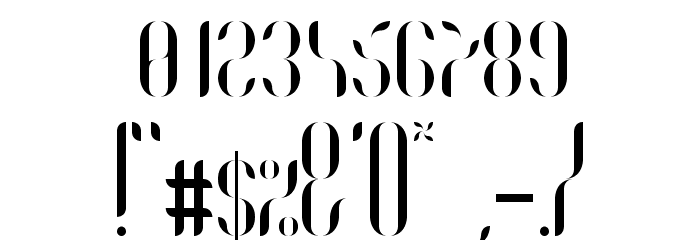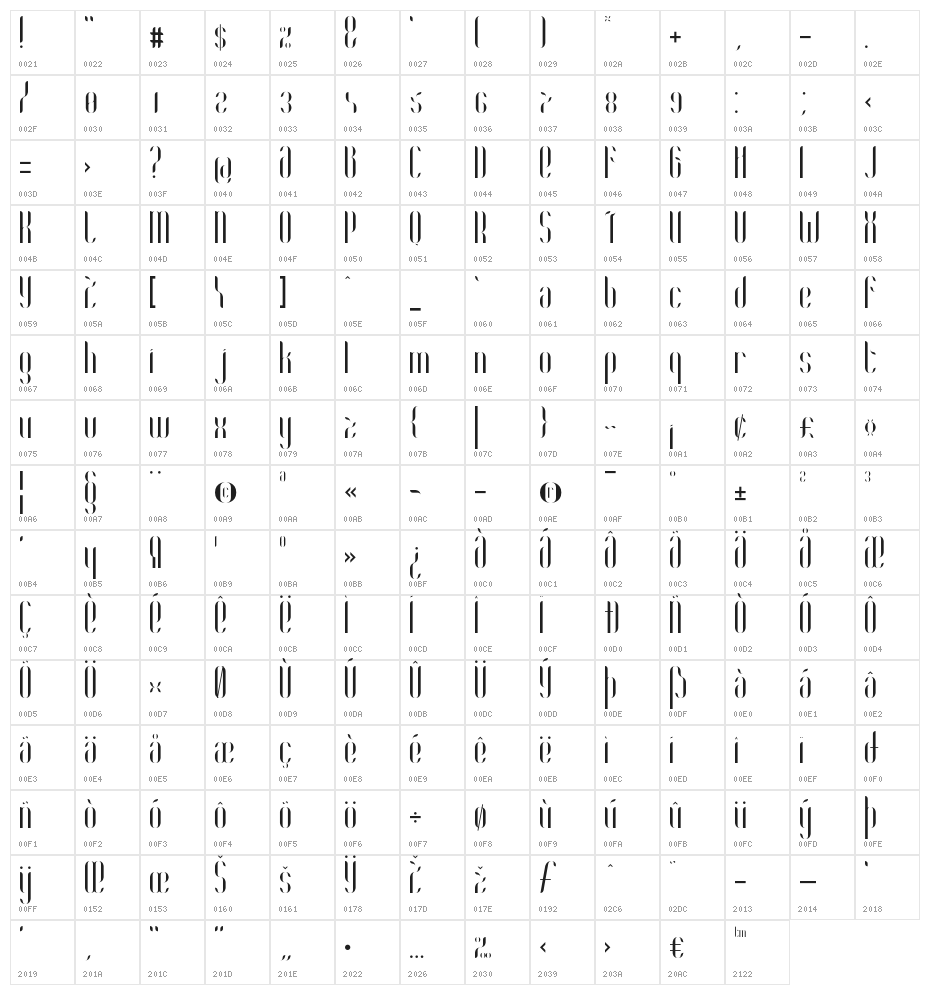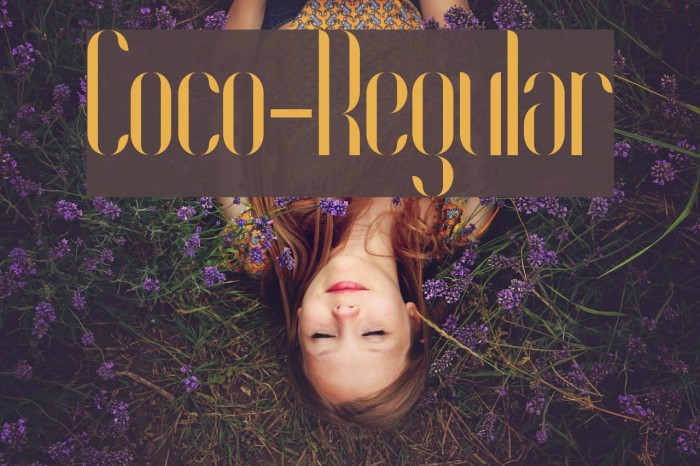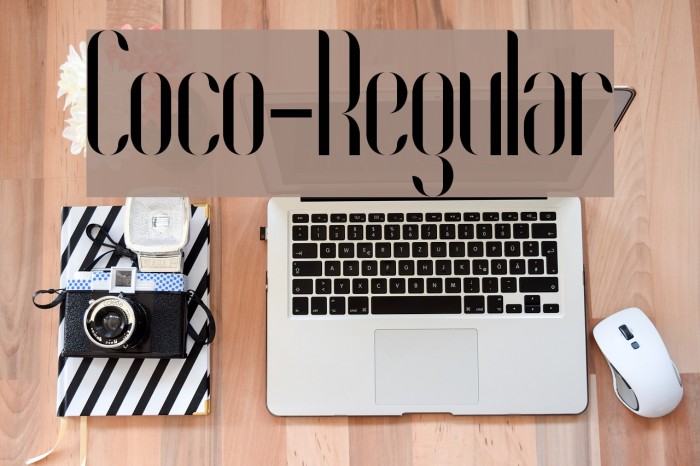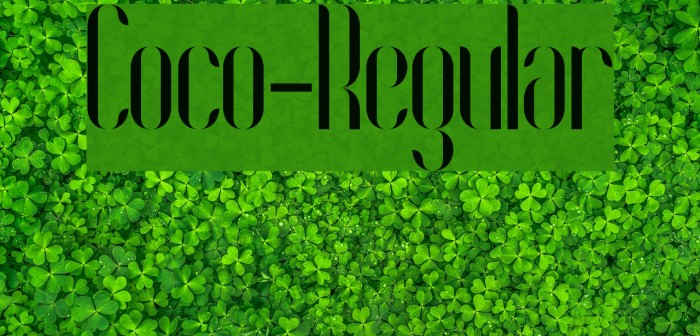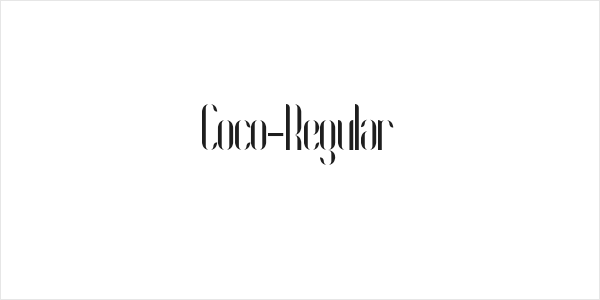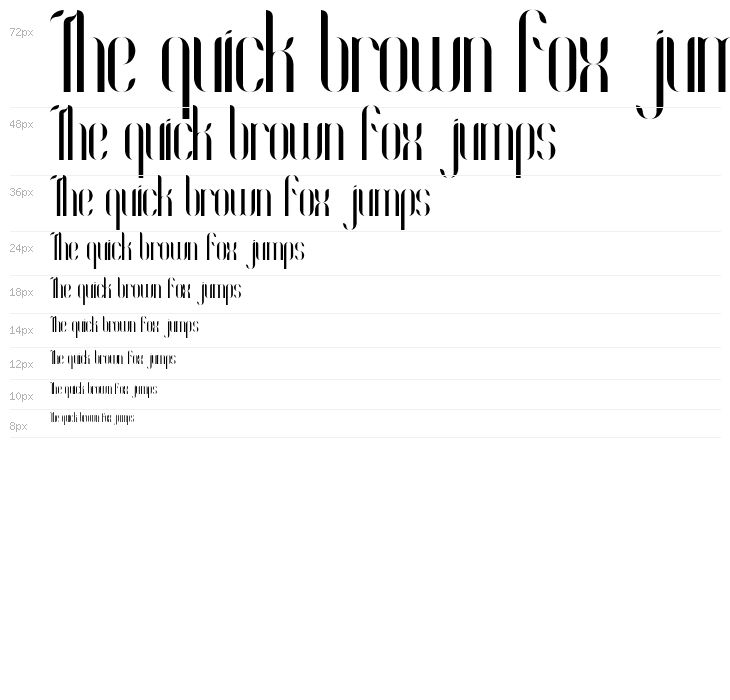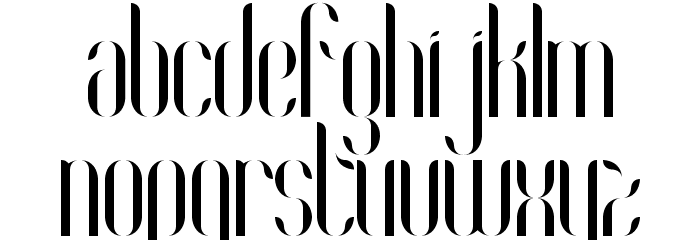
Coco-Regular Font
Coco-Regular Description
This font exhibits a modern and artistic design with a unique blend of geometric and abstract elements. The characters are crafted with high contrast between thick and thin strokes, creating a striking visual impact. The uppercase and lowercase letters maintain a consistent style, with sharp angles and clean lines that contribute to its contemporary appeal. The numerals and special characters are equally distinctive, featuring the same bold and sleek aesthetic. This font is ideal for creative projects that require a bold statement, offering a fresh and innovative look.